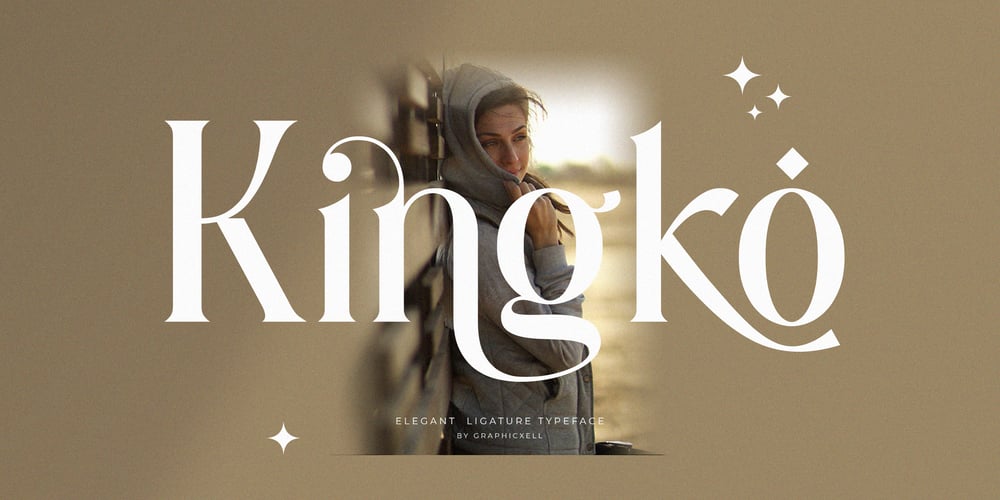
Kingko Font Family was designed by Graphicxell and published by Graphicxell. Kingko contains 1 styles and family package options. Kingko Ligature Serif Font inspired by the famous minimalist logo perfect for the purposes of designing templates, brochures, videos, advertising branding, logos, invitation, layout design, elegant crafting, beauty design and more.